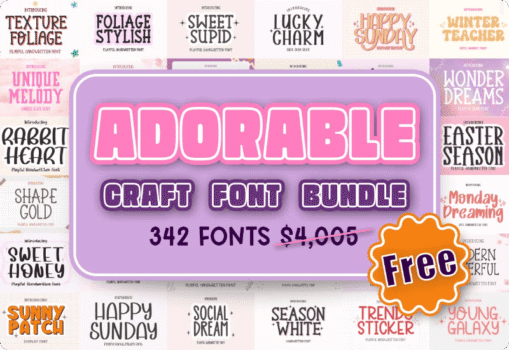
Meet the all‑in‑one font library for crafting, branding, and everyday design
Bring fresh personality to any project with the Adorable Craft Font Bundle, a massive collection of 342 premium fonts curated for effortless results. The pack spans script, calligraphy, handwritten, sans, serif, slab, and display styles — ideal for wedding suites, logos, labels, t‑shirts, mugs, tote bags, social graphics, and packaging. Every font is PUA encoded so you can access swashes, alternates, ligatures, and ornaments in your favorite software without extra steps. A commercial license is included, making it a practical choice for crafters, small businesses, teachers, and agencies.
- 342 premium fonts across script, handwritten, calligraphy, sans, serif, slab, and display categories.
Purchasing fonts one by one can become expensive and inconsistent. This bundle solves the problem with hundreds of coordinated typefaces designed to mix and match. Pair a flowing script with a clean sans for headlines and body copy; use a playful handwritten font for classroom printables; or apply a bold display style on merchandise. The large selection means you’ll usually find the right tone without hunting for add‑ons or paying for additional licenses.
Who it’s perfect for
- Crafters & Etsy sellers who need ready‑to‑use fonts for shirts, tumblers, cards, and stickers.
- Brand builders & freelancers crafting logos, submarks, social templates, and shop signage.
- Teachers & homeschoolers preparing worksheets, certificates, labels, and bulletin boards.
- Event planners producing invitations, menus, place cards, and favors.
- Agencies & in‑house teams standardizing brand kits across print and web.
Creative directions you can try today
- Weddings & events: Combine an elegant script for names with a modern serif for details. Add stylistic alternates to headings for a refined touch.
- Apparel & merchandise: Use thick‑stroke display styles for DTG prints and heat‑transfer vinyl. Many fonts include layered looks for quick shadows or outlines.
- Kids & classroom: Choose rounded, friendly handwritten options for flashcards, reading logs, and reward stickers.
- Seasonal marketing: Rotate festive scripts and bold displays for Valentine’s, spring fairs, back‑to‑school campaigns, and winter promotions.
- Social media: Build a caption set and cover image template using a cohesive script + sans pairing for reels, stories, and thumbnails.
Feature highlights that make crafting easier
2) Clean nodes for smooth cutting
Curves are optimized to reduce jagged edges. Vinyl and paper cuts track neatly on Cricut and Silhouette machines with fewer weeding issues.
3) Print‑ready outlines
Fonts include consistent stroke weights and spacing, helping you produce crisp results on mugs, shirts, tote bags, labels, cards, posters, and more.
5) Versatility by design
From refined calligraphy to bubbly display lettering, there’s a look for gifts, packaging, stationery, signage, and marketing campaigns.